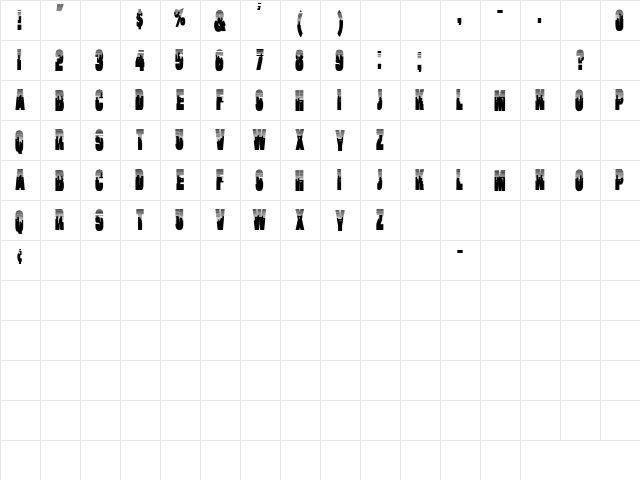
Changes 6 Regular
Design Context for Changes 6 Typeface
Changes 6 is a composed and adaptable typeface that performs quietly and consistently across a wide range of design contexts.